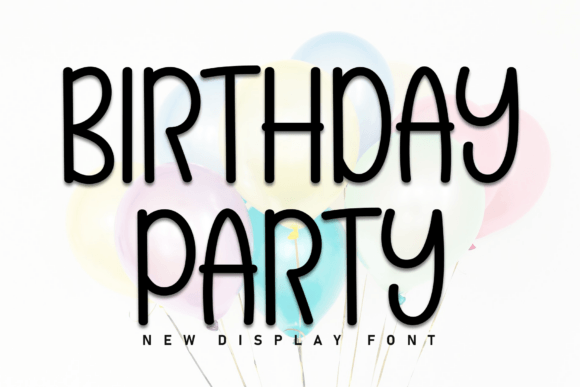
The Birthday Party Font: A Handwritten Gem for Your Designs
Have you ever been in the middle of a design project, and suddenly, you just can’t seem to find the right font? I recall a particularly frustrating experience while working on a wedding invitation design. My client wanted something that exuded elegance, yet remained casual and approachable. That’s when I stumbled upon the Birthday Party font, a handwritten gem that has since become a staple in my design toolkit.
A Personal Review: What I Love About Birthday Party Font
The Birthday Party font is a handwritten font that looks like it was drawn with a marker, giving it a relaxed and sporty feel. Here are some things I love about it:
• Elegant yet casual: It’s perfect for designs that need to strike a balance between sophistication and approachability.
• Versatile: From branding and logos to wedding supplies, greeting cards, and marketing promotions, this font adapts seamlessly.
• 💫 Unique character: The marker-like quality gives it a distinctive personality that sets it apart from more traditional fonts.
While the Birthday Party font is incredibly versatile, there are a few things to keep in mind:
• 🤔 Legibility at small sizes: Like many handwritten fonts, it may lose legibility when used at very small sizes. It’s best used at larger sizes or in headlines.
• ⚠️ Overuse: While it’s tempting to use it everywhere, overusing the Birthday Party font can make your design look cluttered. Balance it with simpler fonts for body text.
The Designer Inspiration Behind Birthday Party Font
The Birthday Party font was created with the intention of capturing the carefree, celebratory spirit of a birthday party. The designer aimed to create a font that felt both luxurious and approachable, perfect for designs that needed a touch of elegance without being too formal. The result is a font that’s perfect for a wide range of applications, from branding and logos to wedding supplies and greeting cards.
What makes the Birthday Party font unique? The Birthday Party font is unique due to its handwritten, marker-like quality, which gives it a relaxed and sporty feel.
Is the Birthday Party font suitable for body text? While it’s possible to use it for body text, the Birthday Party font is best used for headlines or short paragraphs due to its decorative nature.